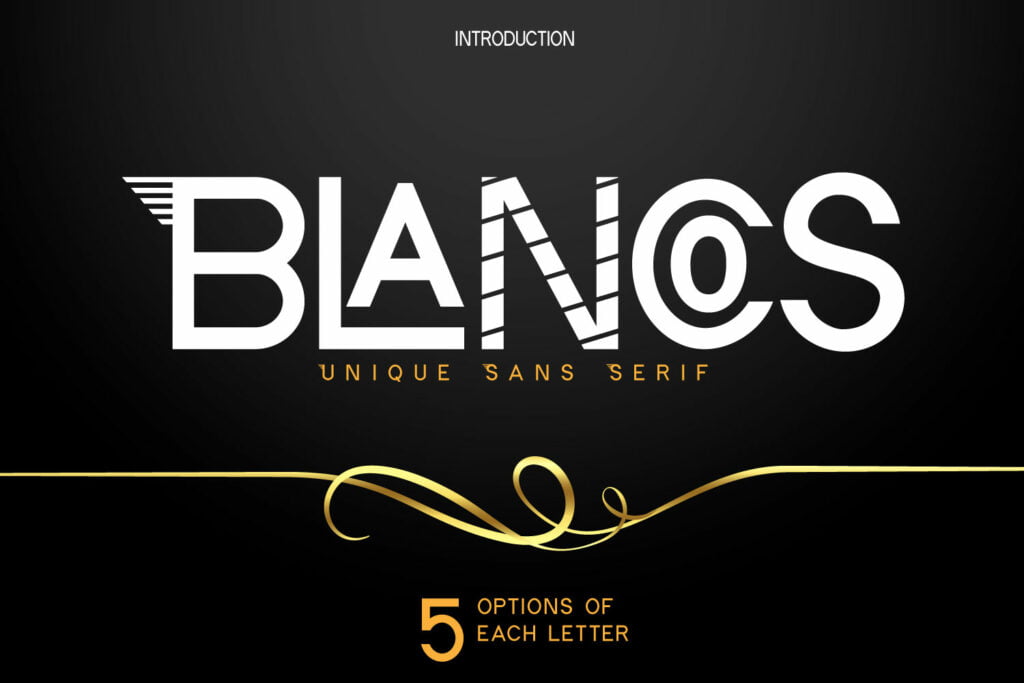
Blancos Font
Blancos is a cool, modern and incredibly unique display font. It will look stunning on any poster flyer or print. Use this font for your designs and explore its endless possibilities. This font is free for PERSONAL USE.
Blancos Modern Sans Serif Font